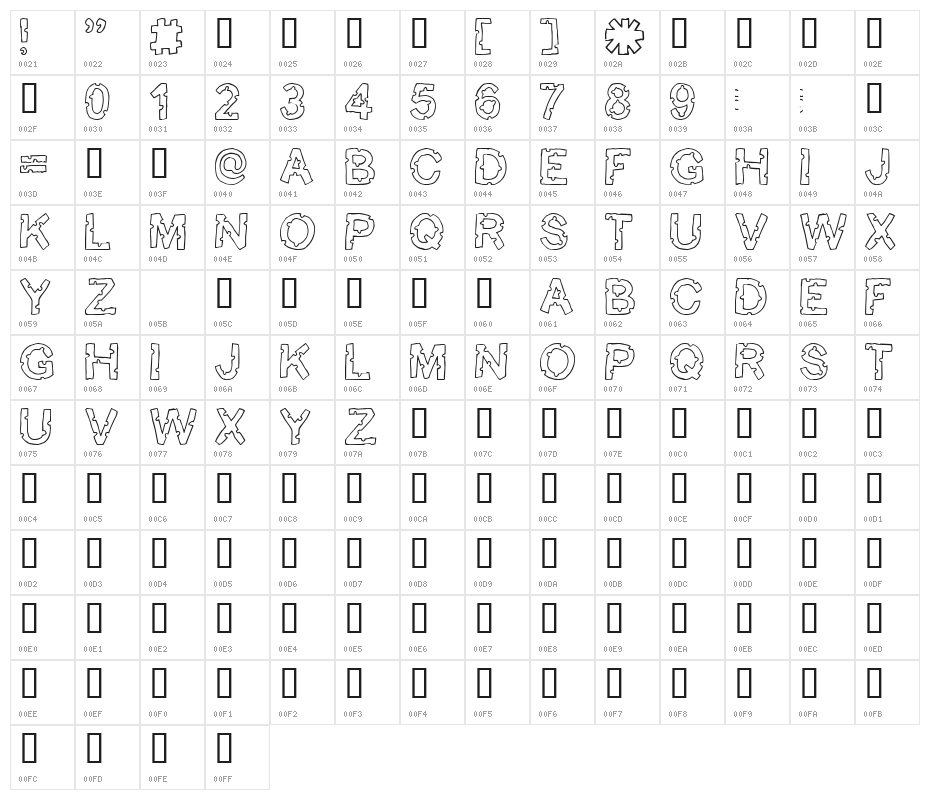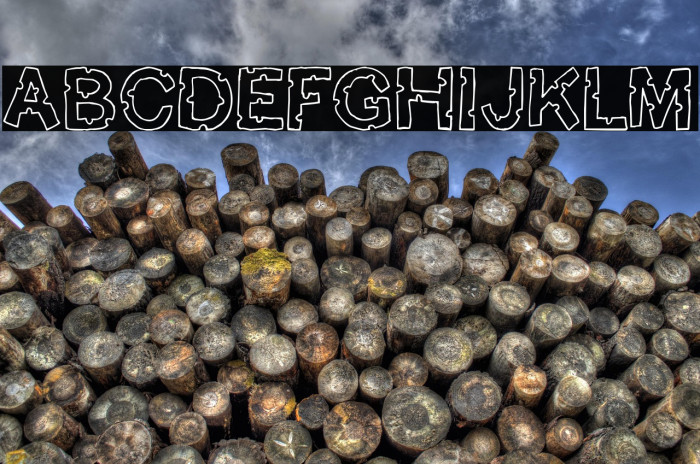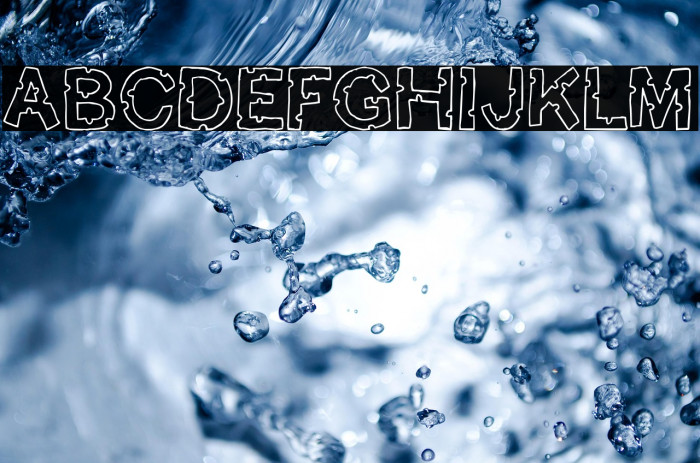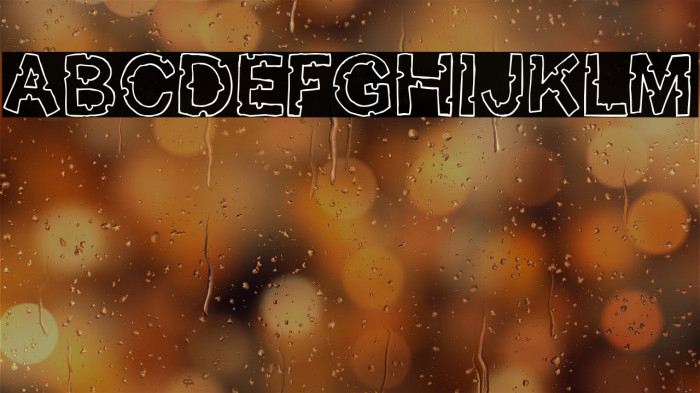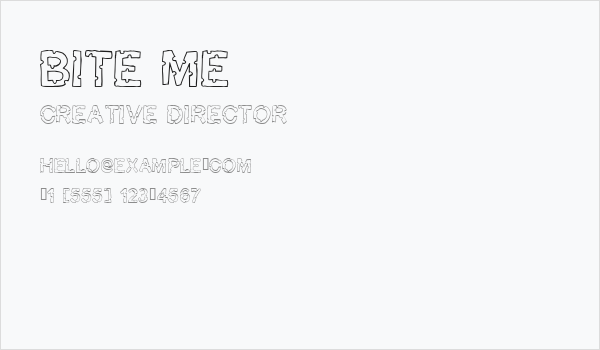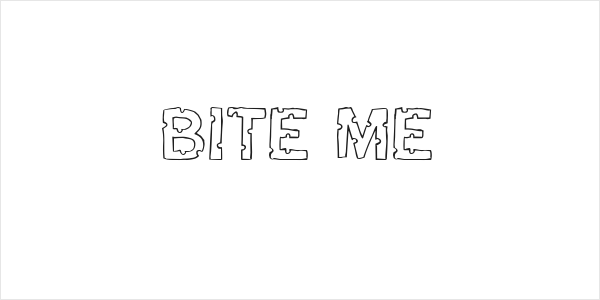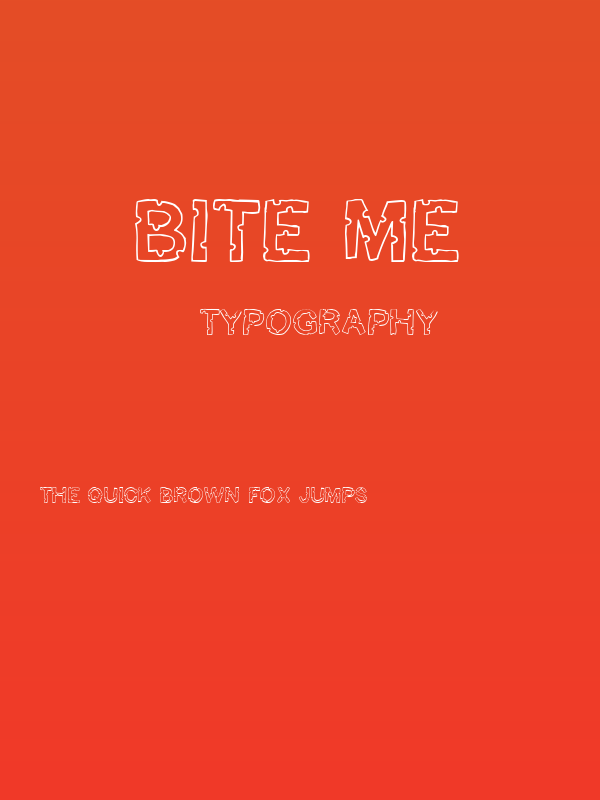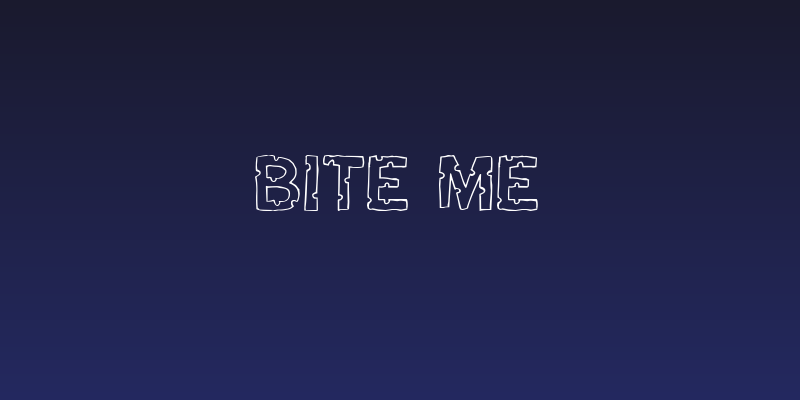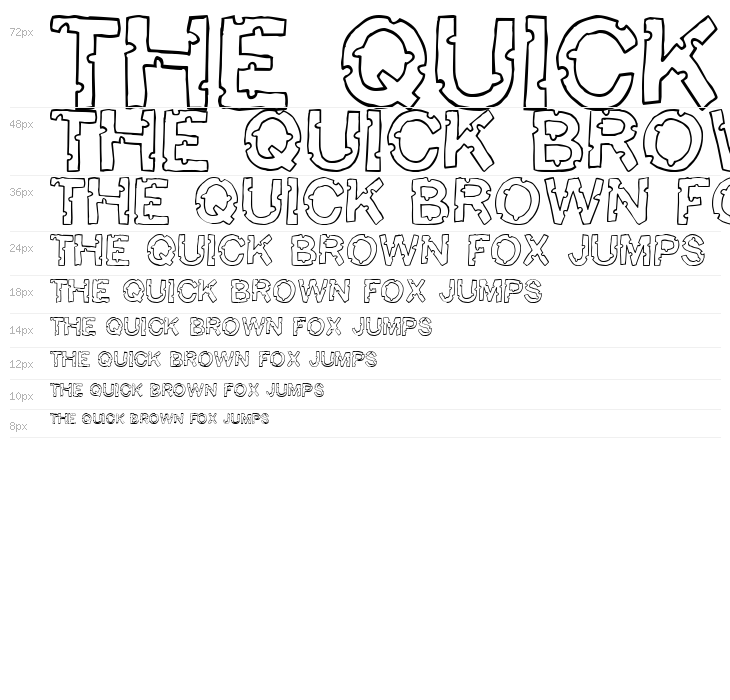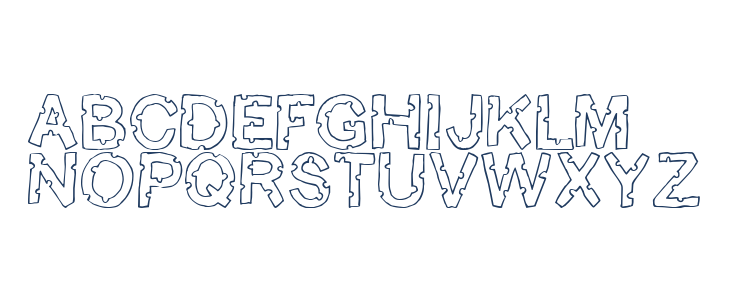
Bite me Font
Bite me Description
This font features a playful and bold outline style with a hand-drawn appearance. Each character is outlined with a thick, uneven stroke, giving it a casual and whimsical look. The letters are uppercase and lowercase, with numbers and special characters included, all maintaining the same quirky outline style. The font's design is reminiscent of doodles or graffiti, making it stand out with its unique and artistic flair. The irregularities in the strokes add to its charm, making it suitable for creative and informal projects.